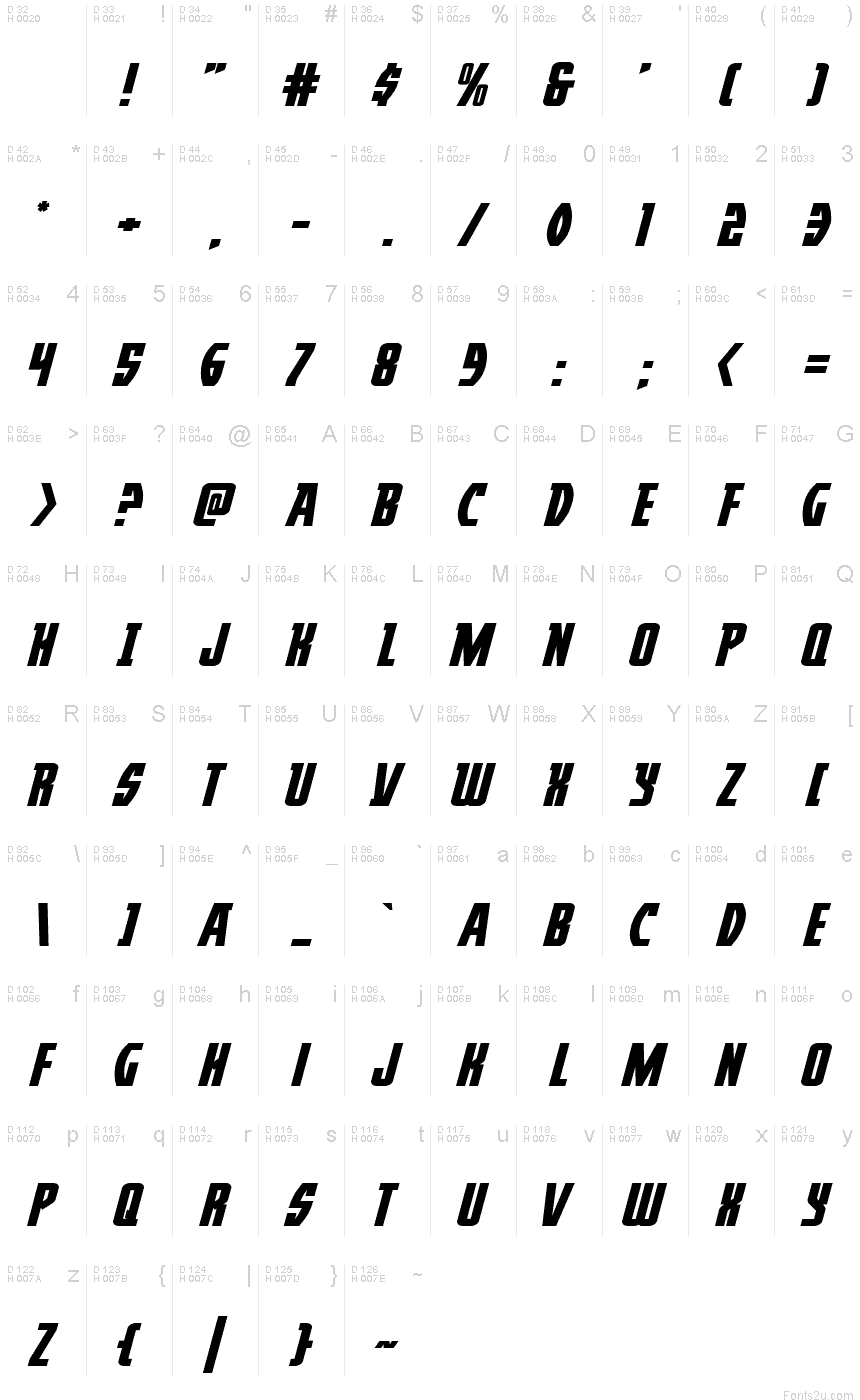
Prowler Expanded Italic by Iconian Fonts is a free futuristic display font with broad, aggressively slanted capitals, angular joins, very tight spacing, and a dense, muscular silhouette. Deep diagonal cuts sharpen the lettering's sense of speed.
Motorsport teams, gaming studios, and performance brands can use its hard-edged forms for event posters, vehicle graphics, title cards, and fan merchandise. It is most convincing in racing identities, where the extreme forward lean and sharply sliced inner shapes echo speed lines, bodywork vents, sponsor graphics, and the compressed force of close competition.
Prowler Expanded Italic